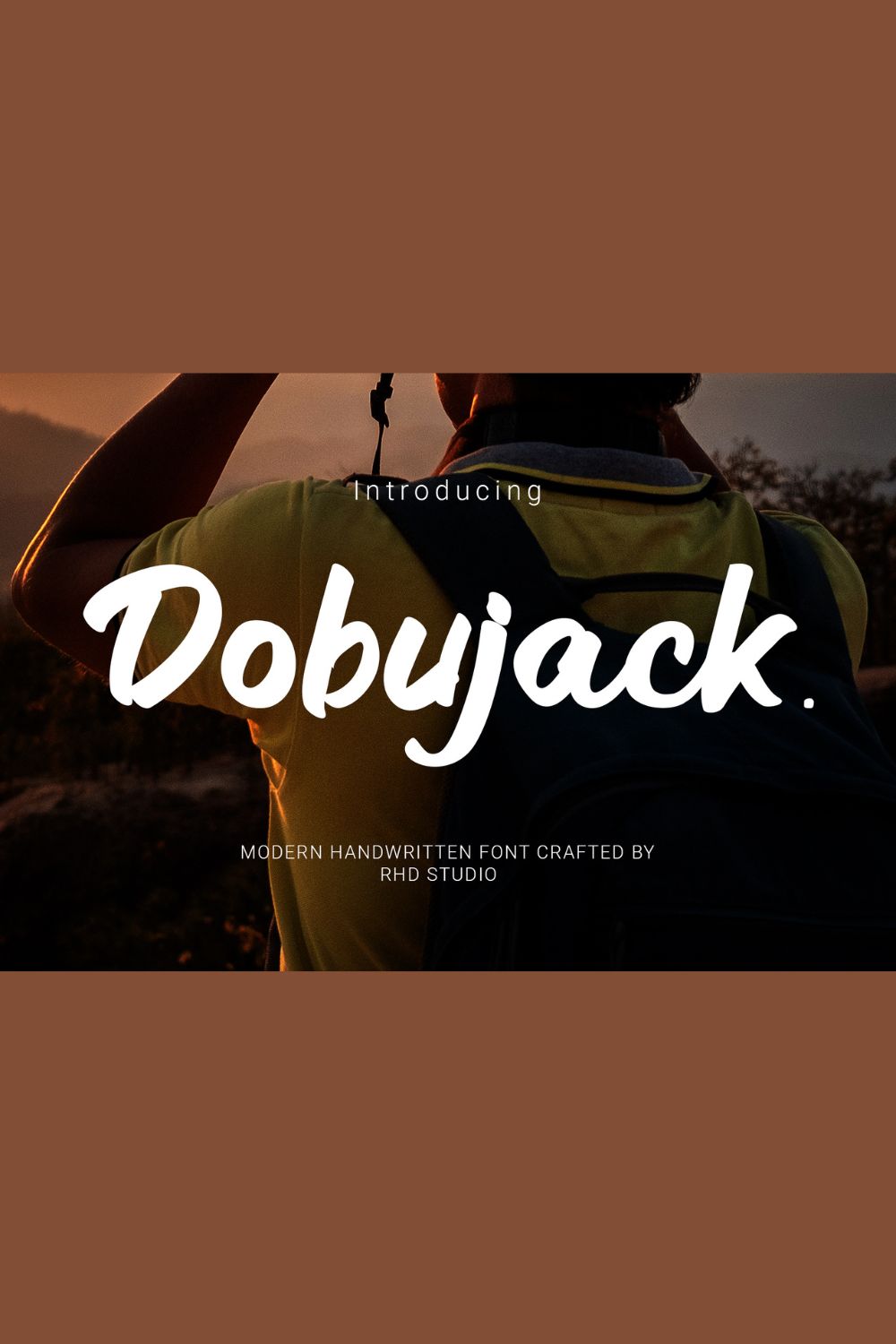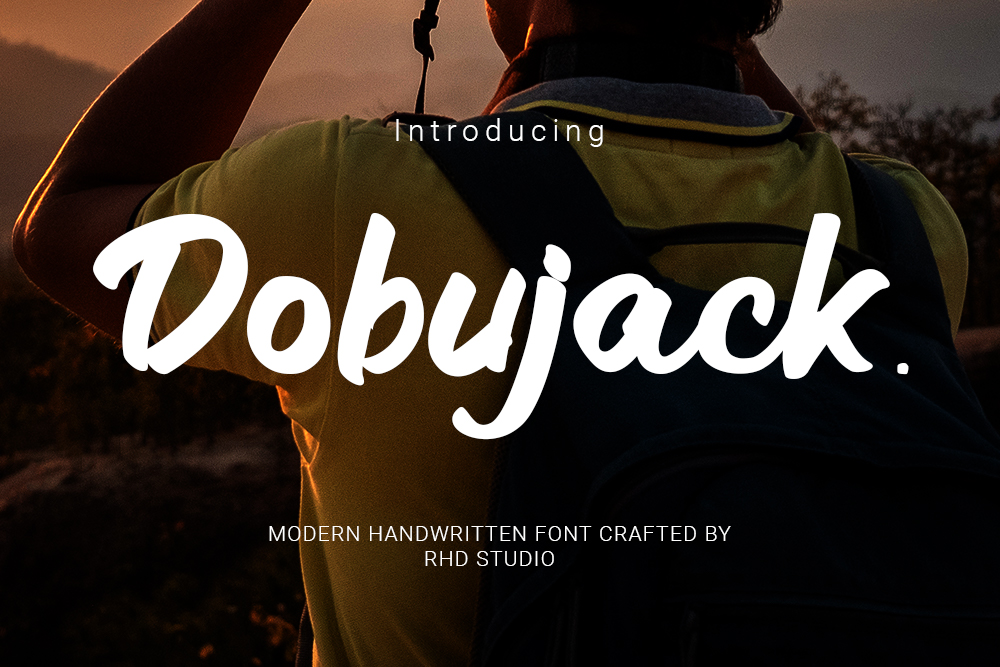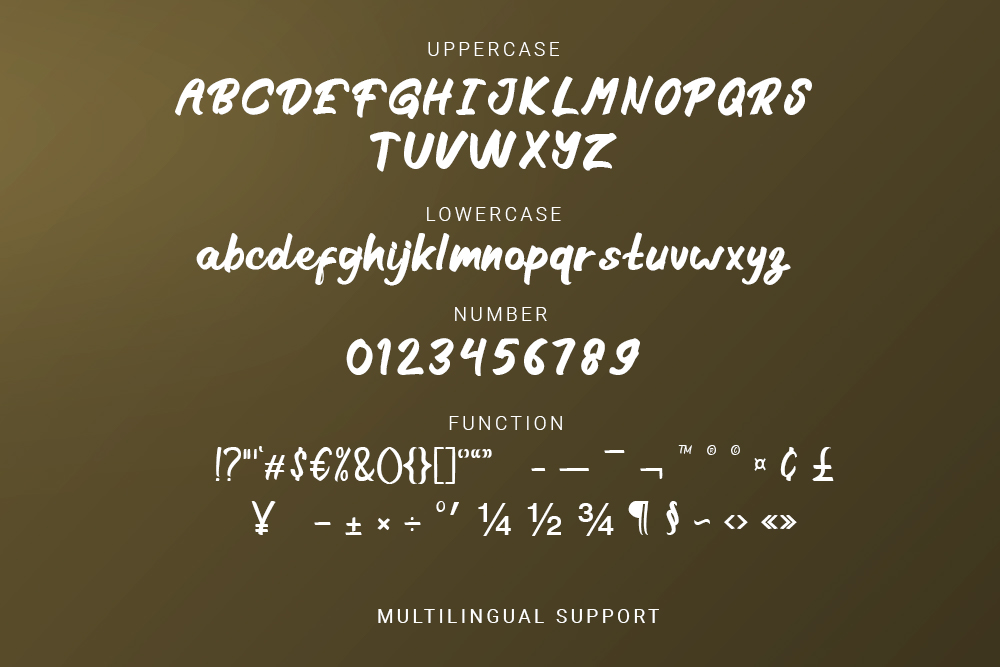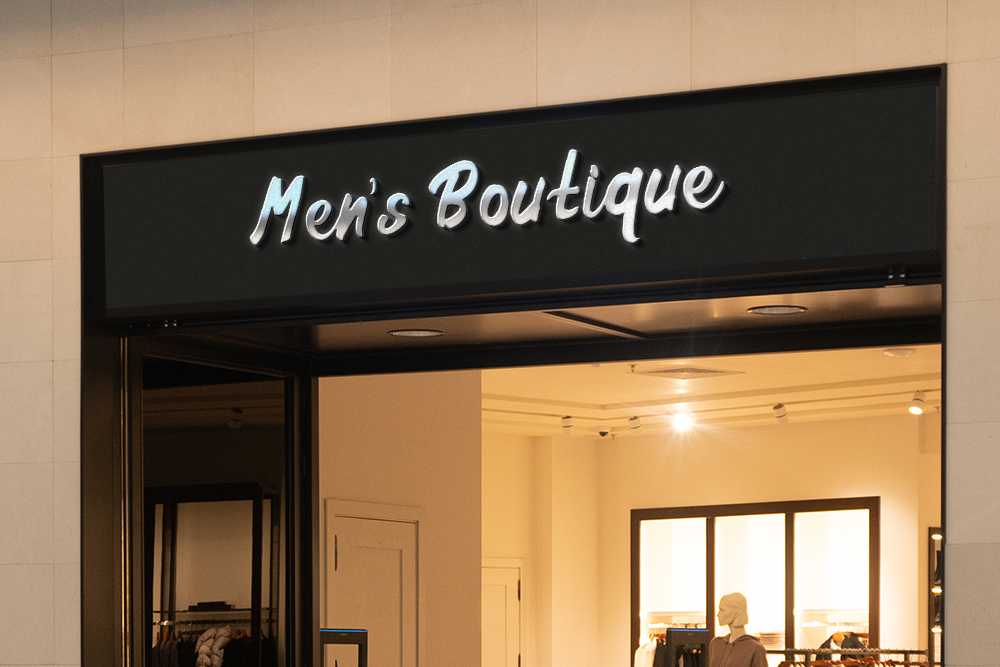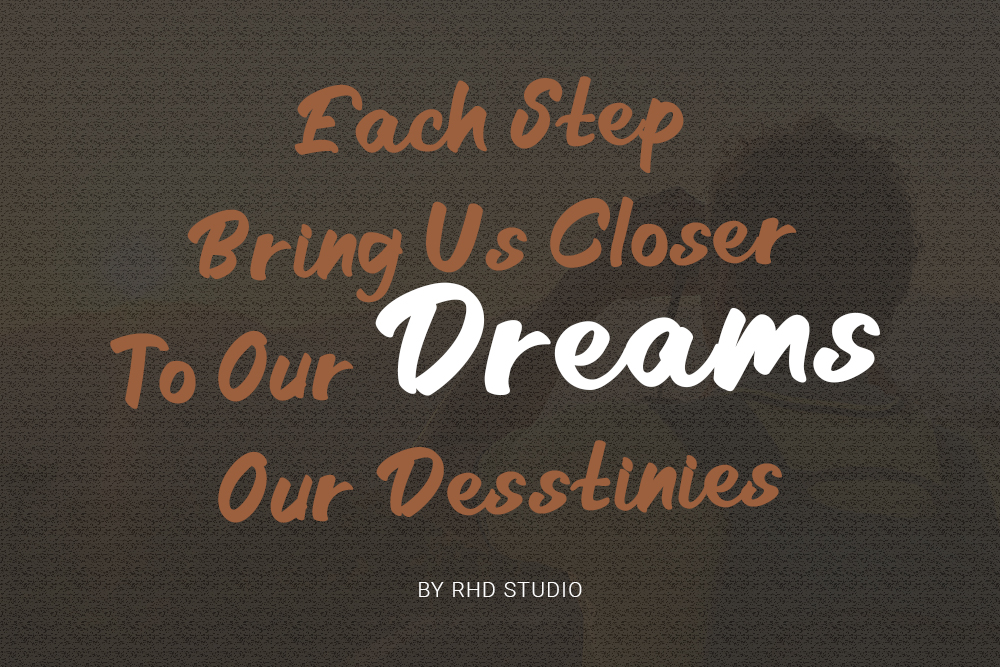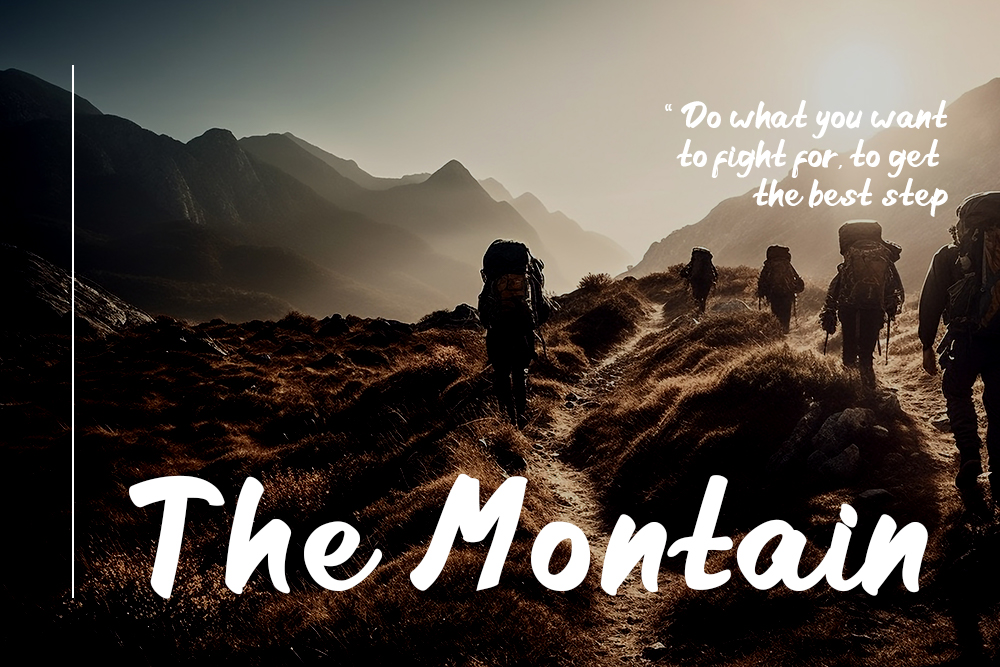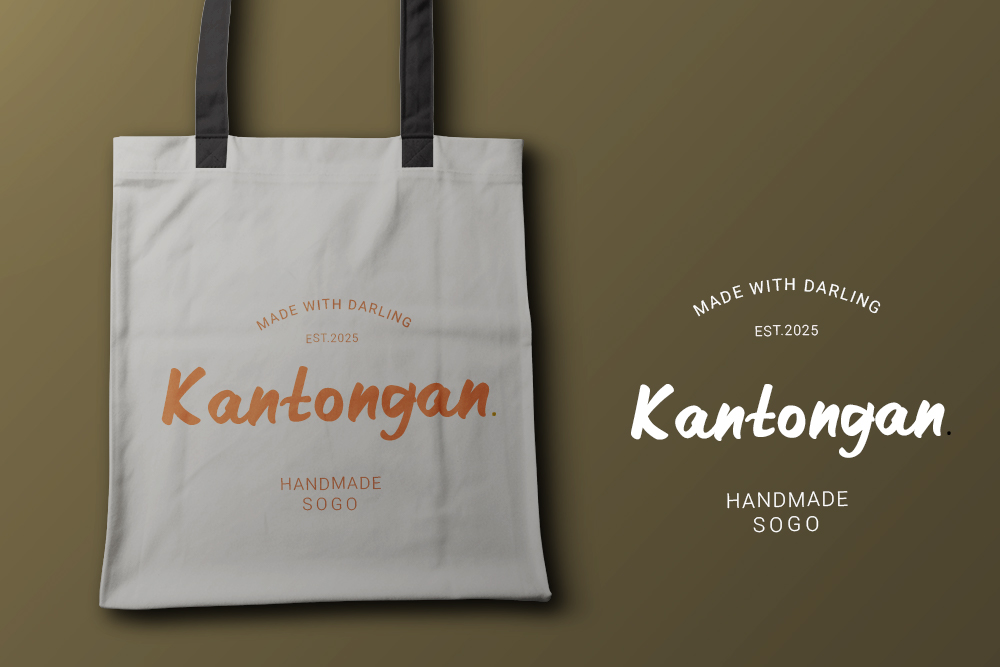
Hello everyone, I would like to introduce Dobujack A Modern Script Font.
Dobujack is modern script font with modern character. Dobujack bring authentic handwritten font to make your design project stand out! Dobujack is a perfectly choice for any creative endeavor, creating, modern, chic, lifestyle design such as logotype, title, cover, branding, invitations, wedding designs, display and magazine, social media posts, advertisements, printed quotes, product packaging, corporate brand, product designs, labels, photography, watermarks, special events and any other project with modern touch.
FEATURES
– Uppercase and Lowercase letters
– Numbering and Punctuations
– Multilingual Support
Fonts include multilingual support